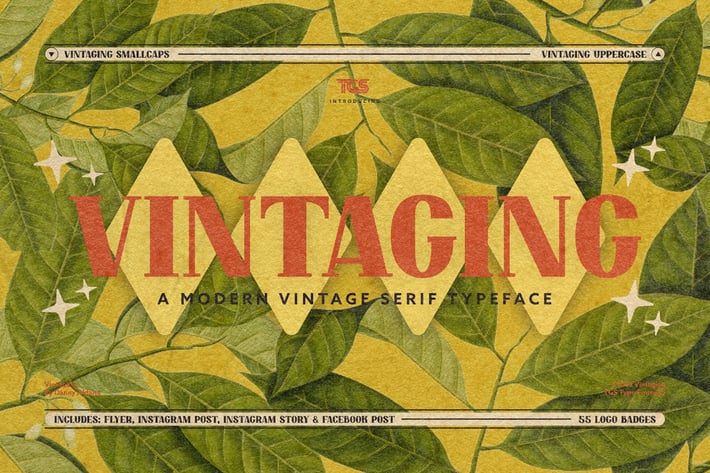
Vintaging Typeface
Vintaging Typeface is an All-caps Modern Vintage Serif Display Typeface inspired by many graphic designs from poster covers, illustrations, and novels from back in the 1950s. With the modern-vintage looks, it'll fit various different design needs.